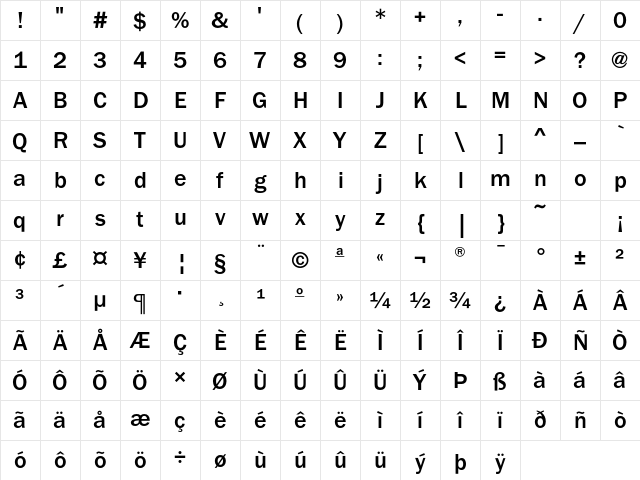
FranklinGothicEF Medium
Complete FranklinGothicEF Medium glyph index. Displaying only characters natively supported by FranklinGothicEF Medium font.
Design Context for FranklinGothicEF
FranklinGothicEF takes a clean, functional approach - its unadorned letterforms prioritise legibility and work reliably across screen and print environments.
Font Pairing: Works well alongside a characterful serif or display font that can carry the expressive load while FranklinGothicEF handles the functional copy.
Pro Tip: Use FranklinGothicEF for UI labels, navigation, and short-form body copy where clean legibility is the priority.